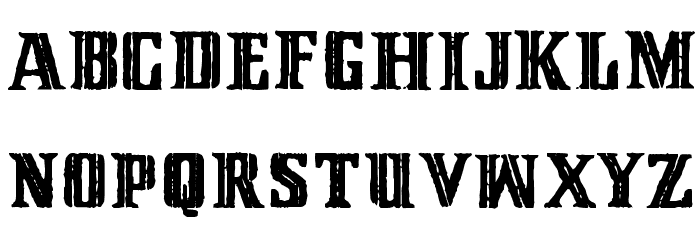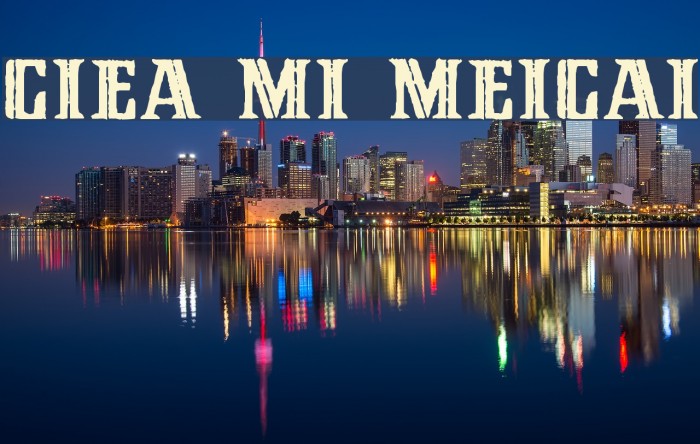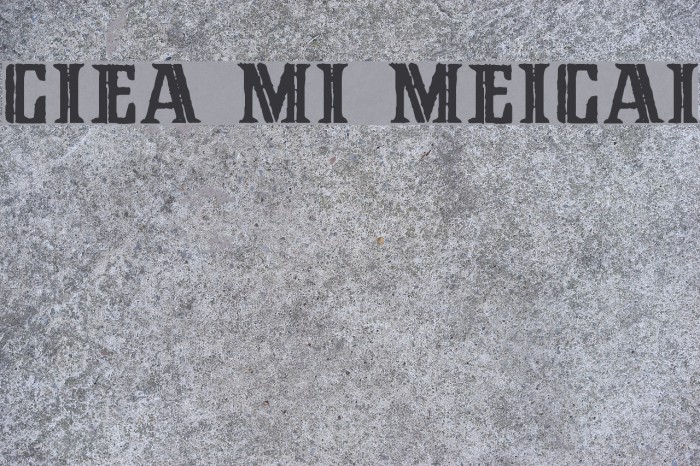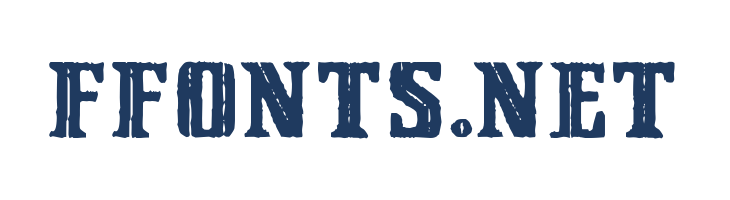
Cinquenta Mil Meticais Font
This font features a bold, distressed style with a vintage flair. The uppercase letters are characterized by their rugged, textured appearance, reminiscent of old western or circus posters. The font's boldness is accentuated by its thick strokes and uneven edges, giving it a handcrafted, rustic look. The characters are well-defined, with a strong presence that commands attention. This style is ideal for creating a dramatic impact in design projects, where a touch of nostalgia or a bold statement is desired.
A bold, distressed font with a vintage, rustic style.
- Proposed Projects: Ideal for posters, branding, logos, and any design needing a vintage or western theme.
- Overall Style: Vintage